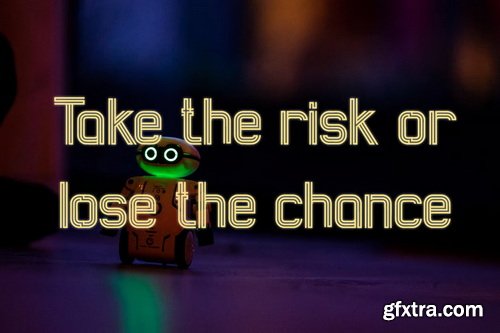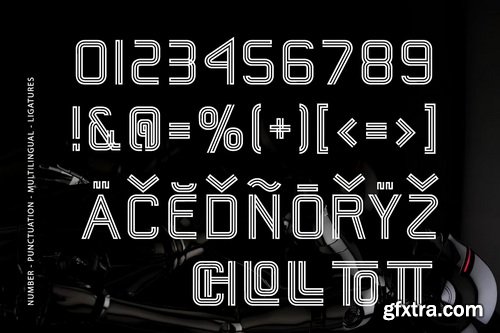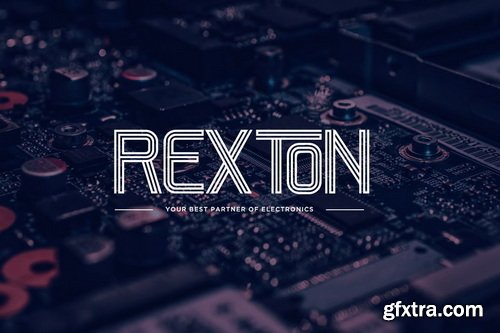
Linedery Futuristic Tripline Font
Linedery is an unique tripline futuristic sans font with brings science fiction style, modern and minimalist. It can appropriate for many logos, headlines, and titles.